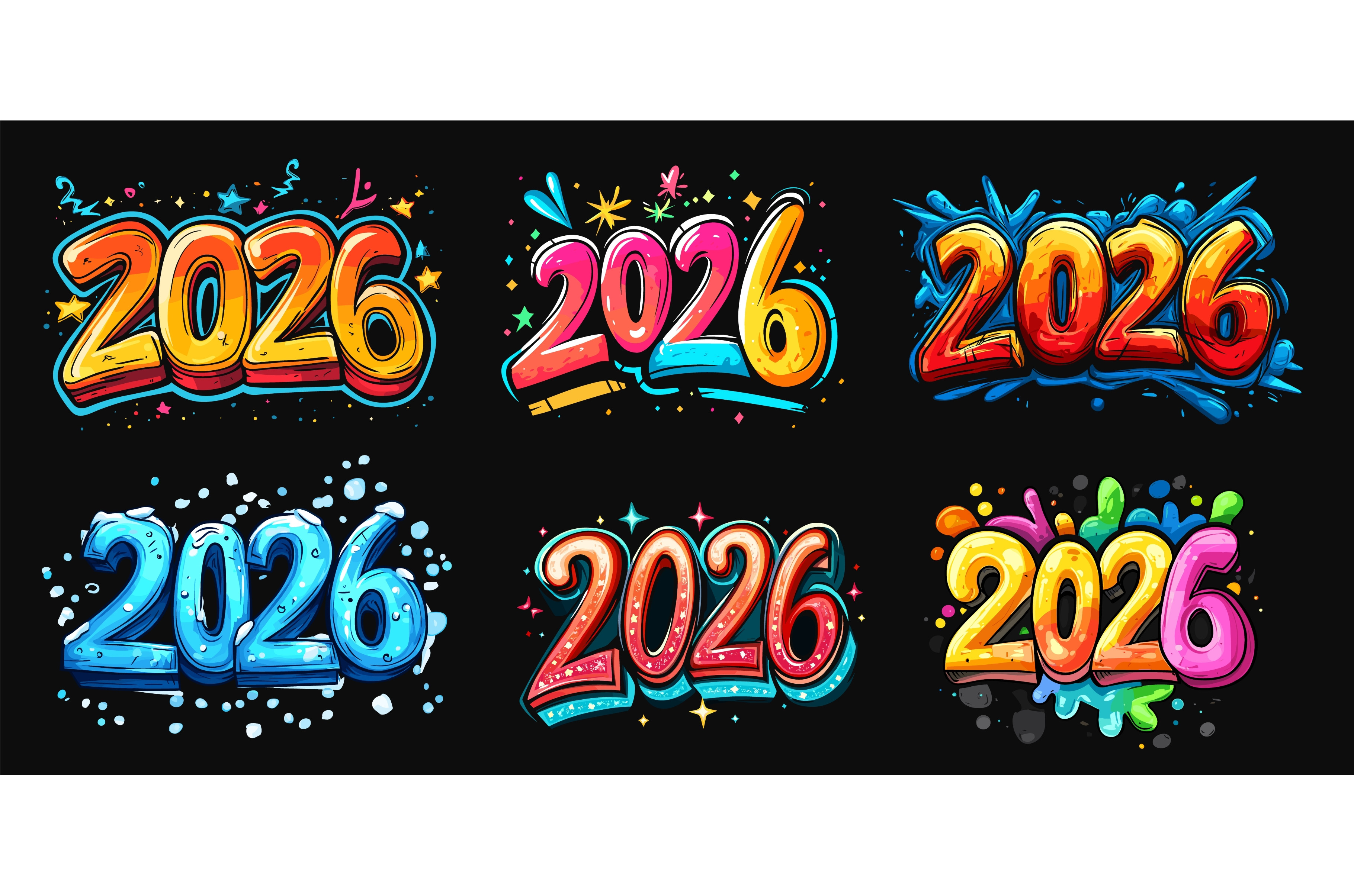
2026 cartoon font. Cute 3d text new
2026 cartoon font. Cute 3d text new year numbers 2 0 6 funky graffiti number kid party handwritten typography creative poster background hand lettering stickers vector illustratio AI gen